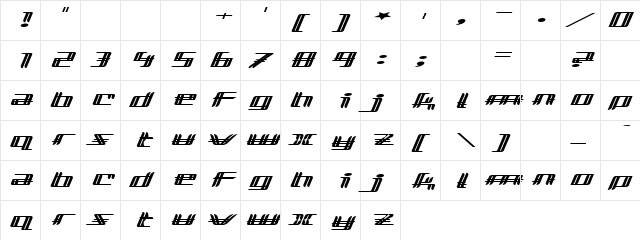
Double Impact Regular
Design Context for Double Impact Typeface
Double Impact has the bold swagger of sports branding: strong, assertive letterforms designed to dominate headlines and jerseys alike.
A natural choice for gym brands, fantasy sports, jersey lettering, and action-driven headlines.
Pro Tip: Use Double Impact in all-caps headlines where its athletic energy can fully express itself. Pair with a solid, simple sans for supporting text.